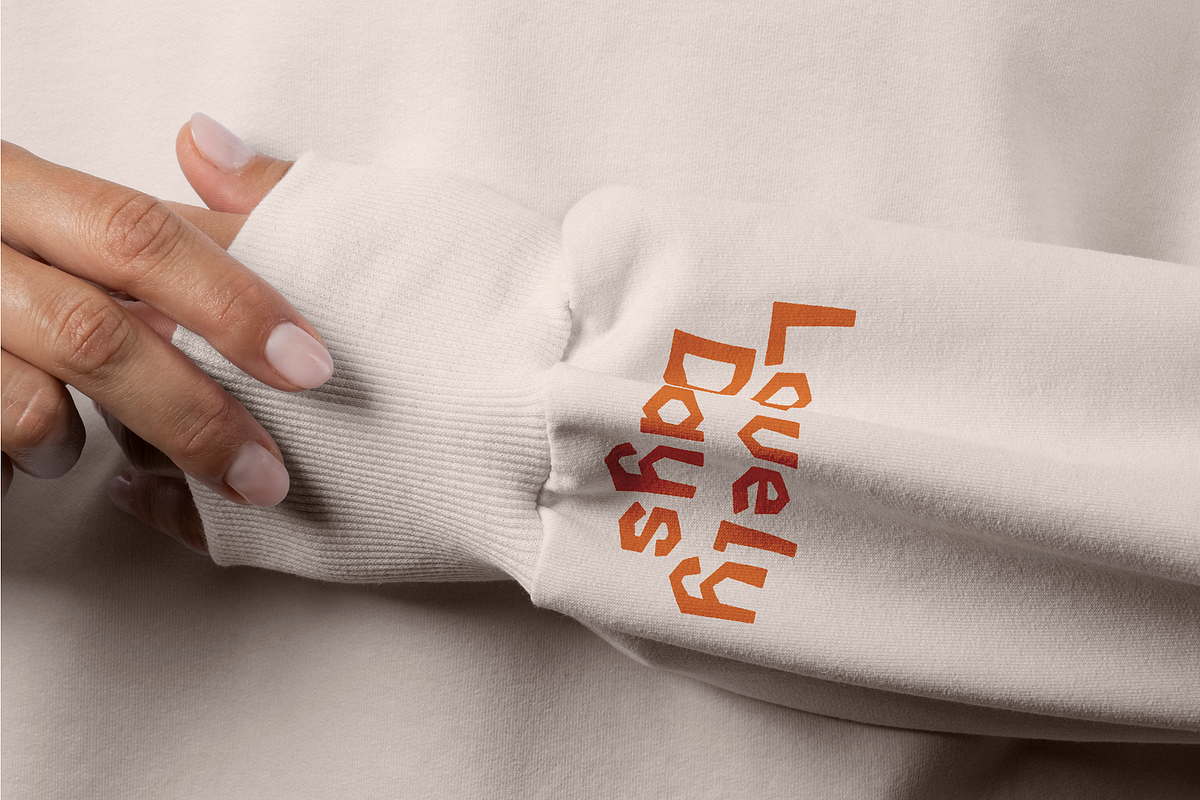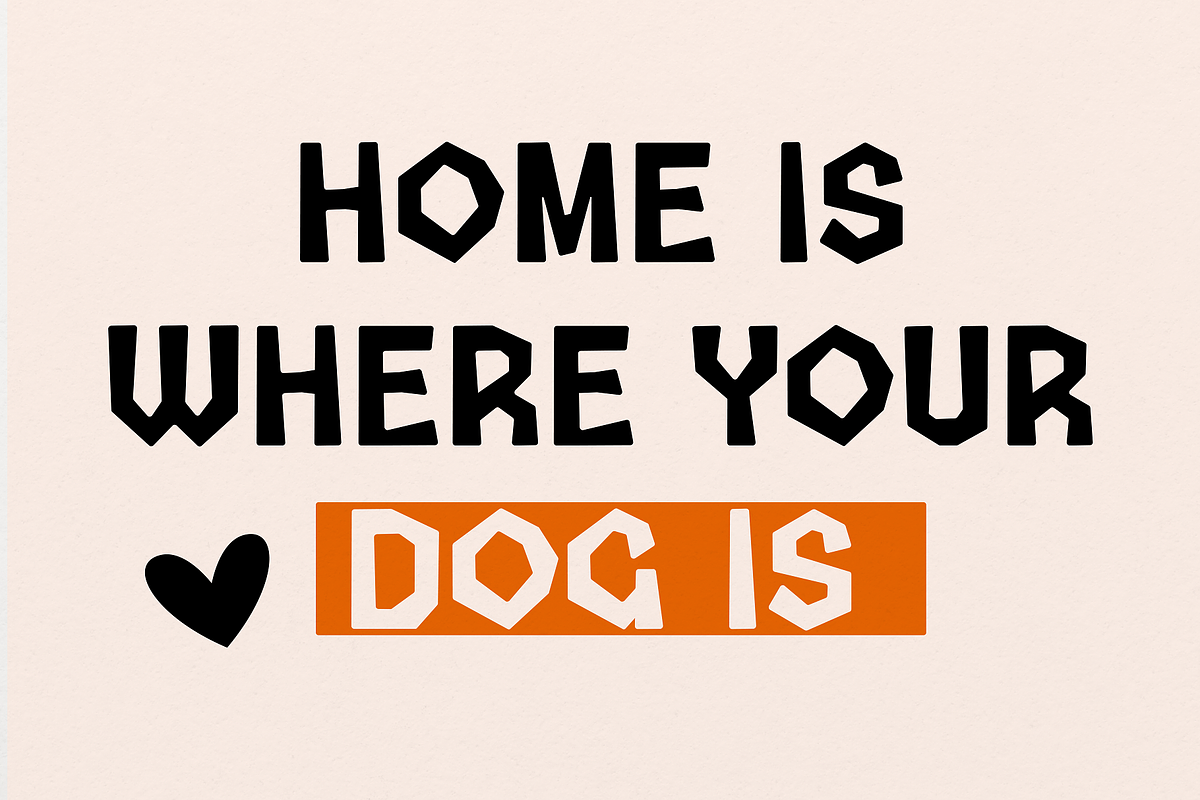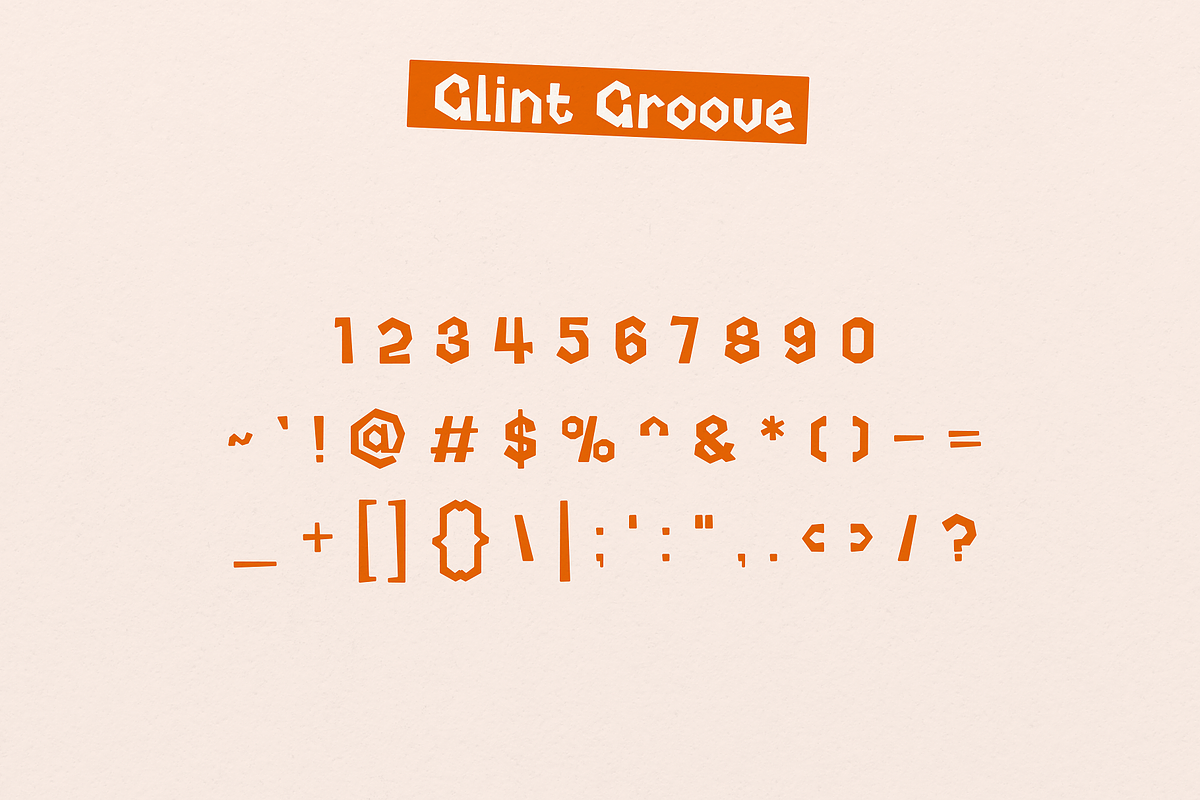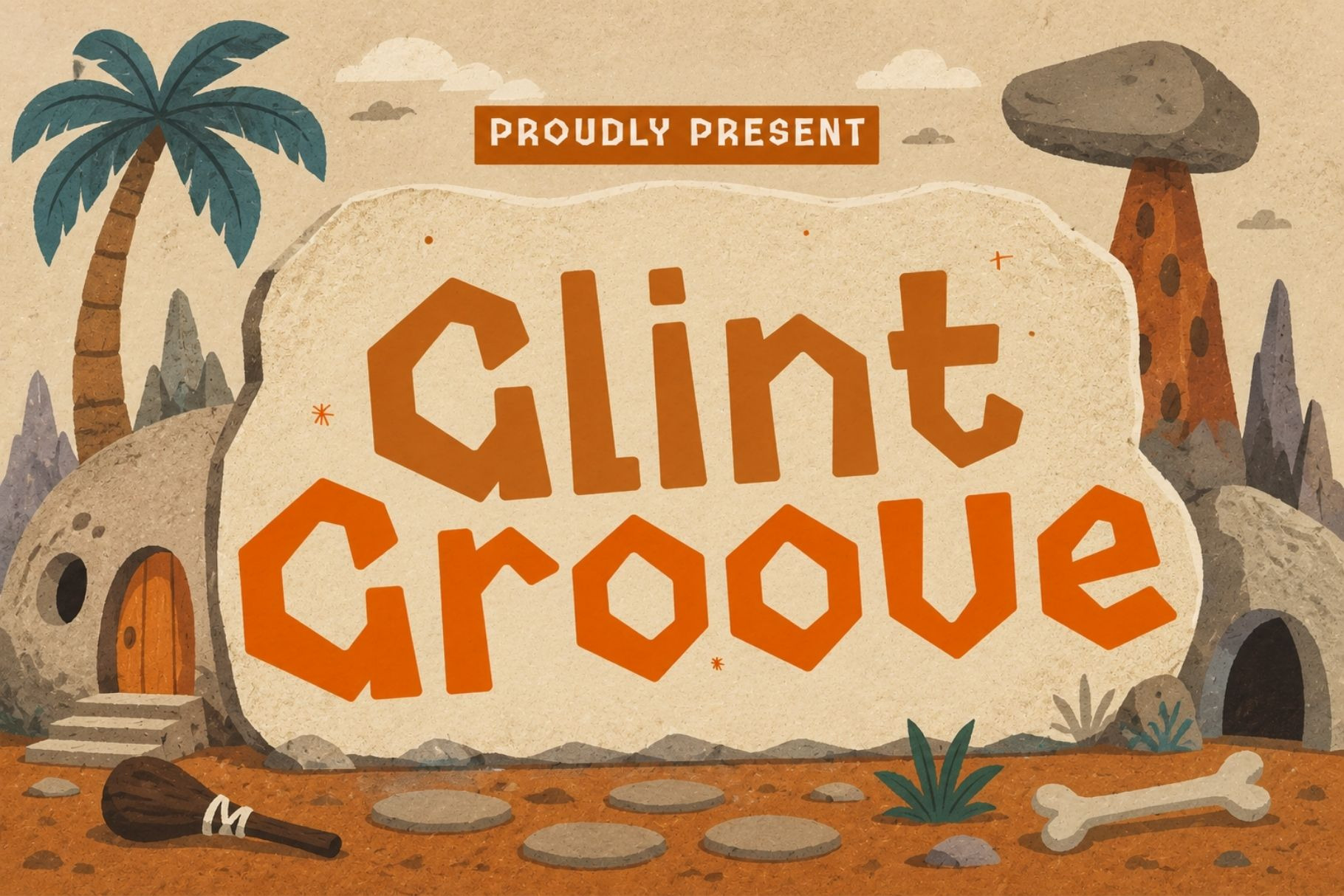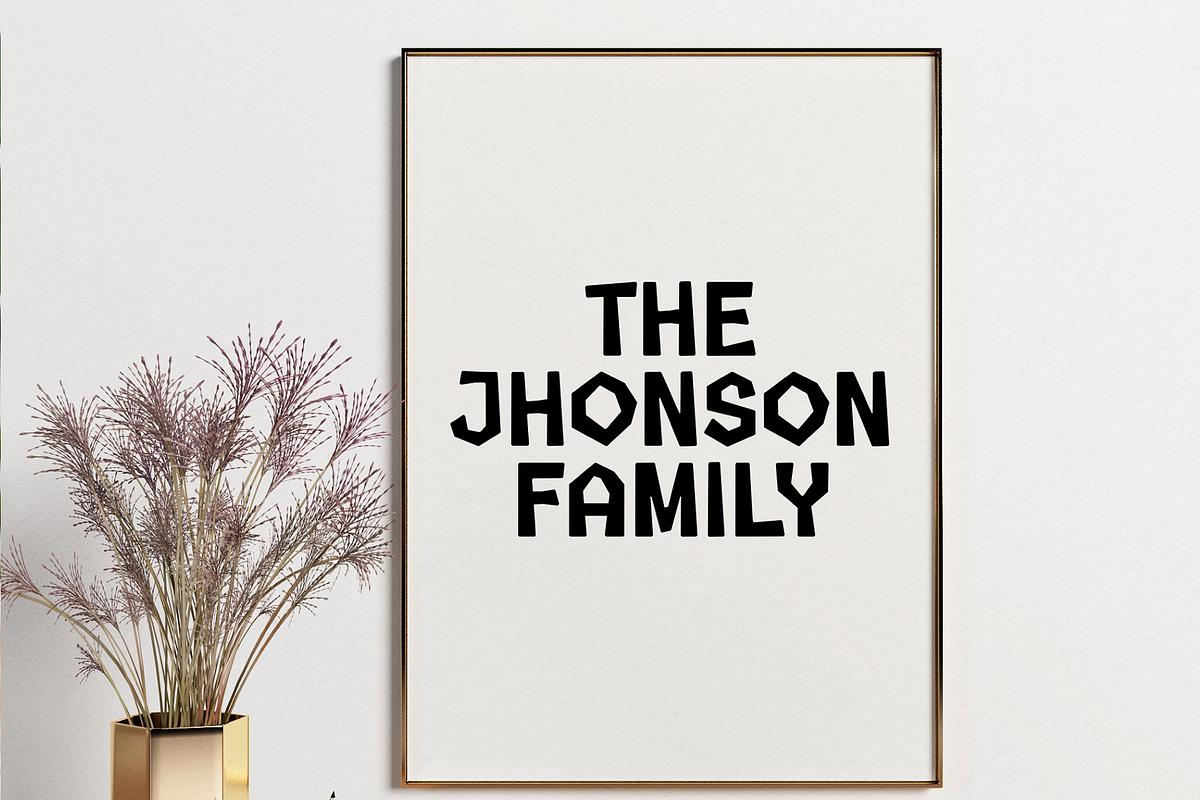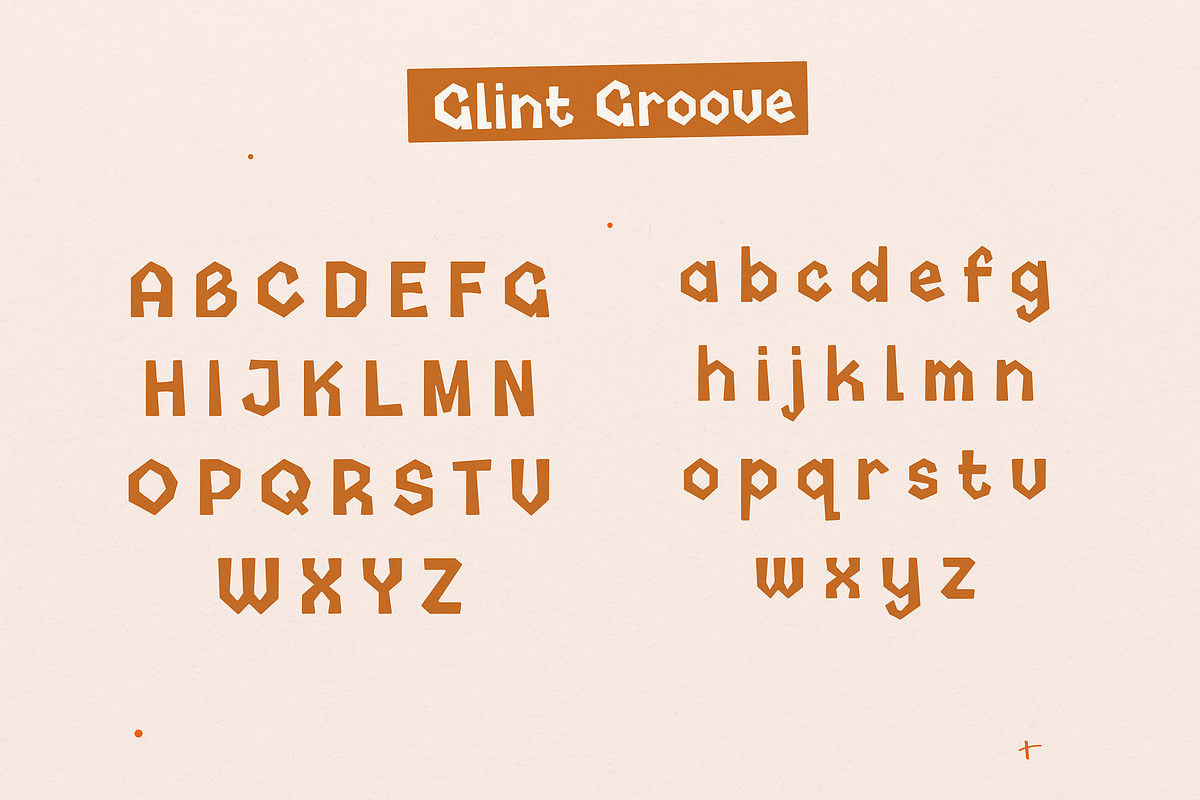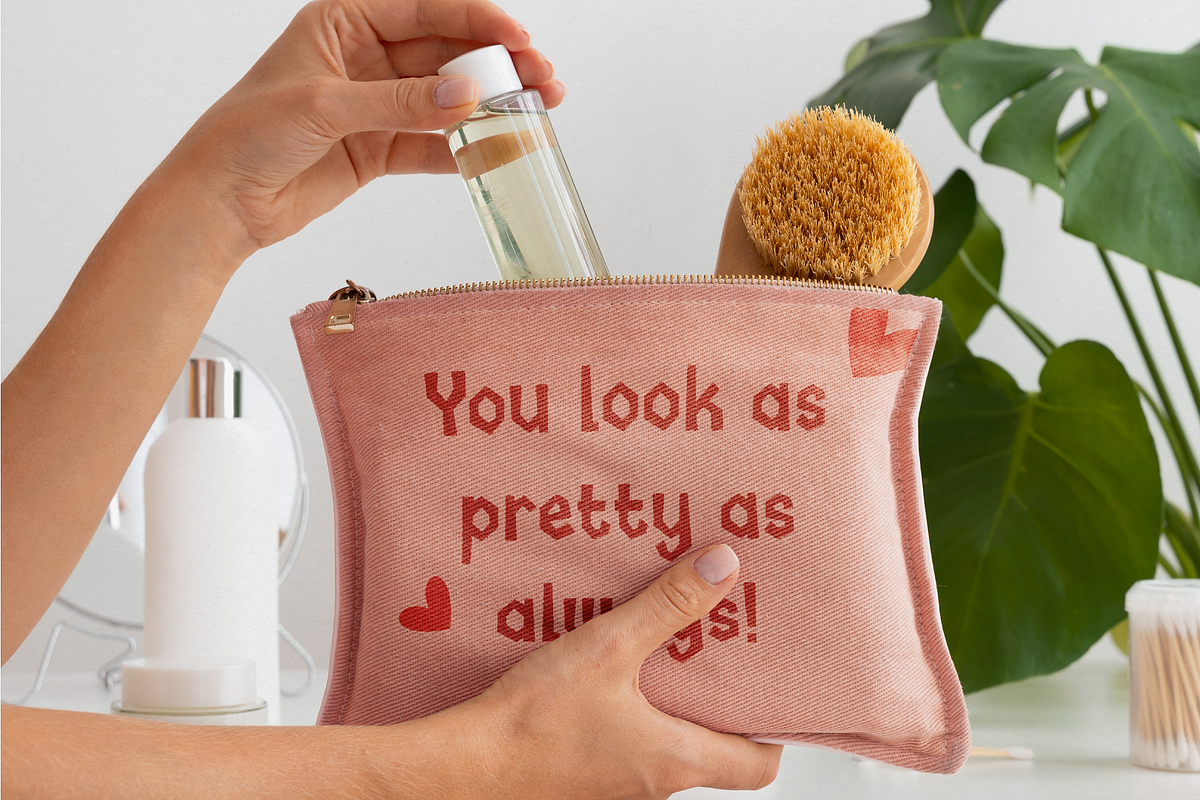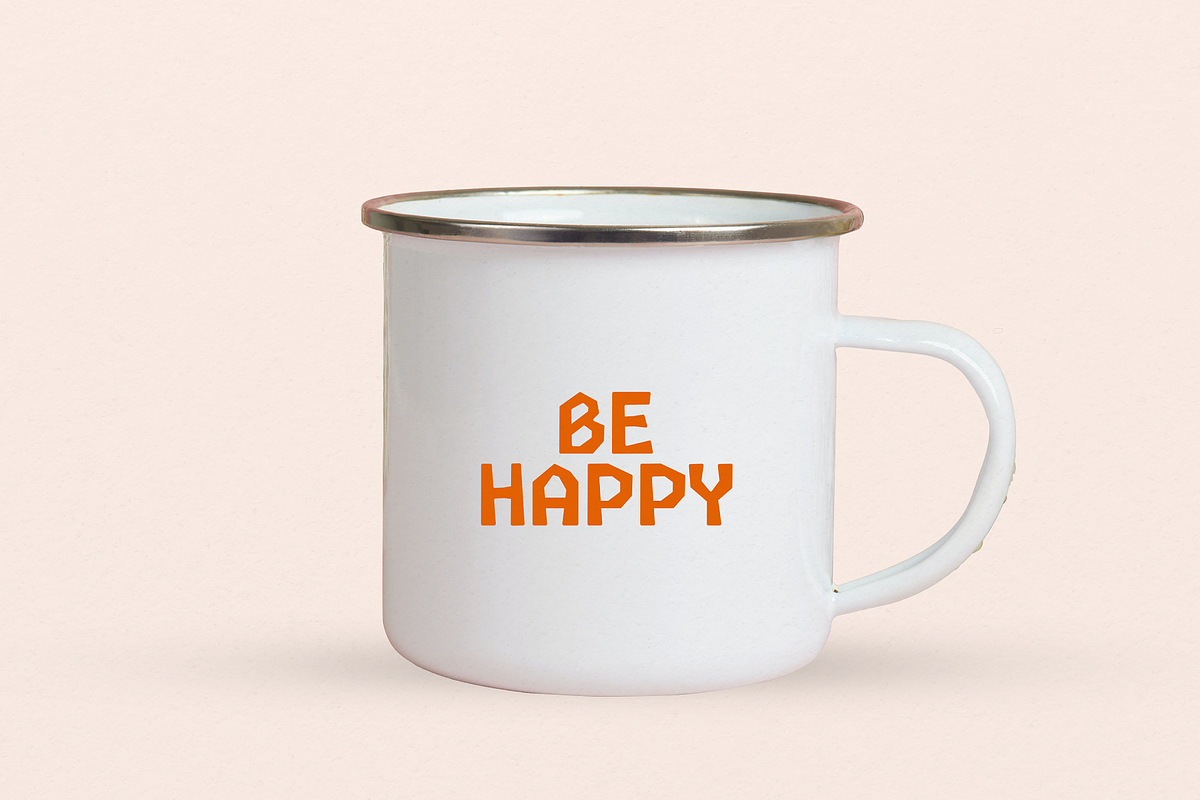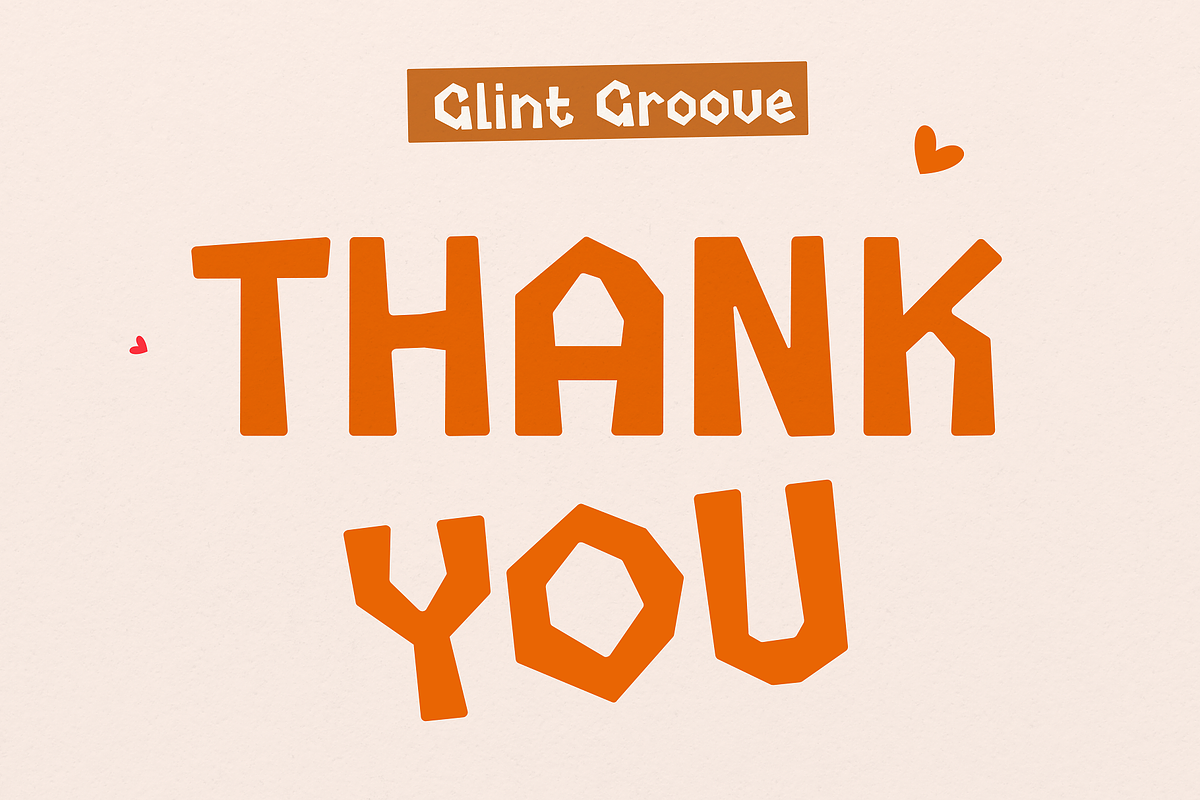
Glint Groove - Construction Typeface
Introducing Glint Groove, a font that embodies the perfect fusion of playfulness and professional boldness. This typeface, with its chunky and robust characteristics, captures the essence of rock-solid confidence and fun. It's an ideal choice for a wide range of projects, from captivating kids' creations to impactful professional branding.
Glint Groove's design is characterized by its bold, chunky letters that seem to dance with energy and enthusiasm. Each letter is crafted to stand out, making any text instantly eye-catching and memorable. This makes Glint Groove perfect for titles, headlines, and any application where you want your message to make a strong, lasting impression.
For children's projects, Glint Groove adds a touch of whimsy and excitement, making learning materials, storybooks, and posters more engaging and enjoyable. In the professional realm, its boldness translates into a powerful tool for branding, creating logos and marketing materials that speak volumes about the strength and dynamism of your brand.
Glint Groove is more than just a typeface; it's a statement. Whether you're aiming to delight a younger audience or make a bold statement in the corporate world, Glint Groove offers the perfect blend of fun and professionalism, making it a versatile choice for a variety of design needs.